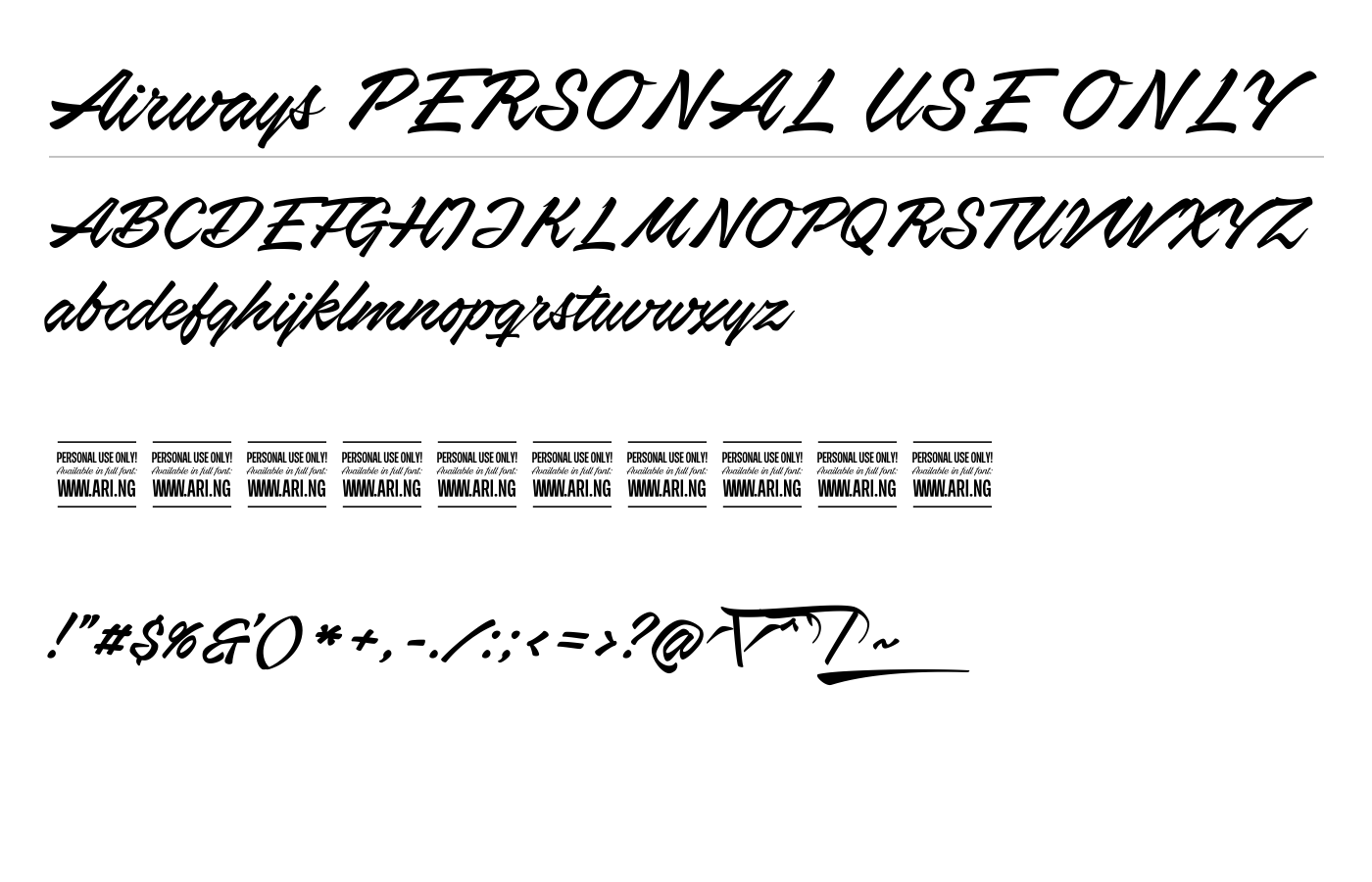
Airways is a dynamic script font that blends elegant calligraphic strokes with a casual, handwritten style, creating a lively and personal feel. Its medium weight and flowing letterforms make it ideal for adding a touch of sophistication and warmth to invitations, logos, or branding that aims to feel approachable yet stylish. This font works especially well in creative and personal projects where a sense of individuality and artistic flair is desired.
| Font family | Airways PERSONAL USE ONLY Font |
| Designer | MÂns Greb‰ck |